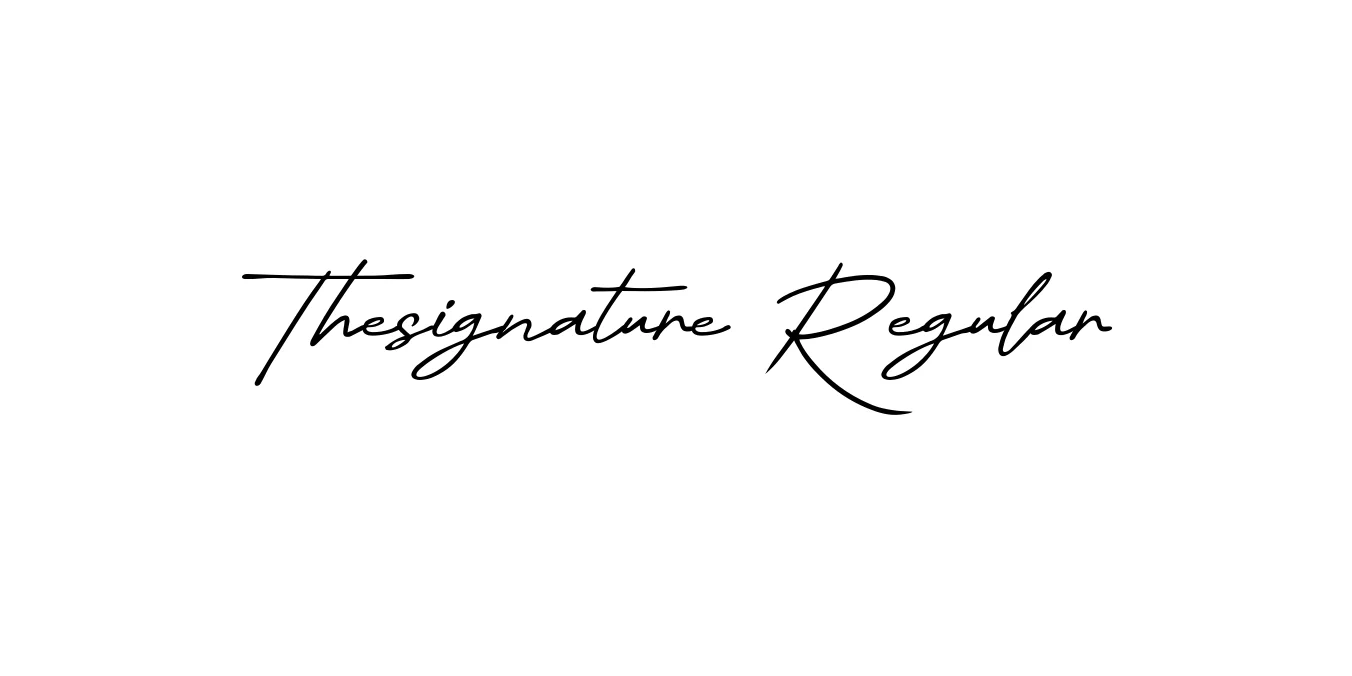
Thesignature Regular
Designed by Creatype Studio (Rian Rahardi)
Thesignature Regular is a sophisticated and fluid handwritten script font designed by Rian Rahardi of Creatype Studio. This typeface was crafted to capture the essence of natural, elegant handwriting, offering a sense of authenticity and a personal touch to any digital or print design. Its sleek, flowing lines provide a rhythmic quality that mimics real pen-on-paper movement, making it highly effective for premium design projects.
The font is widely celebrated for its clean ligatures and balanced strokes, which allow it to remain legible while maintaining a high level of artistic flair. Since its introduction, Thesignature Regular has become a favorite among graphic designers for high-end branding, fashion editorials, and luxury packaging, bridging the gap between casual script and formal elegance.
Thesignature Regular Best Uses
Ideal for creating unique logos, business cards, and brand identity systems.
Perfect for wedding invitations, greeting cards, and personalized stationary.
Excellent for professional watermarks and digital artist signatures.
Great for high-end Instagram quotes, lifestyle graphics, and blog headers.